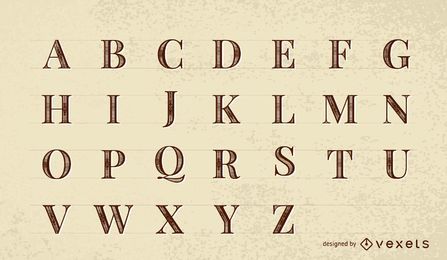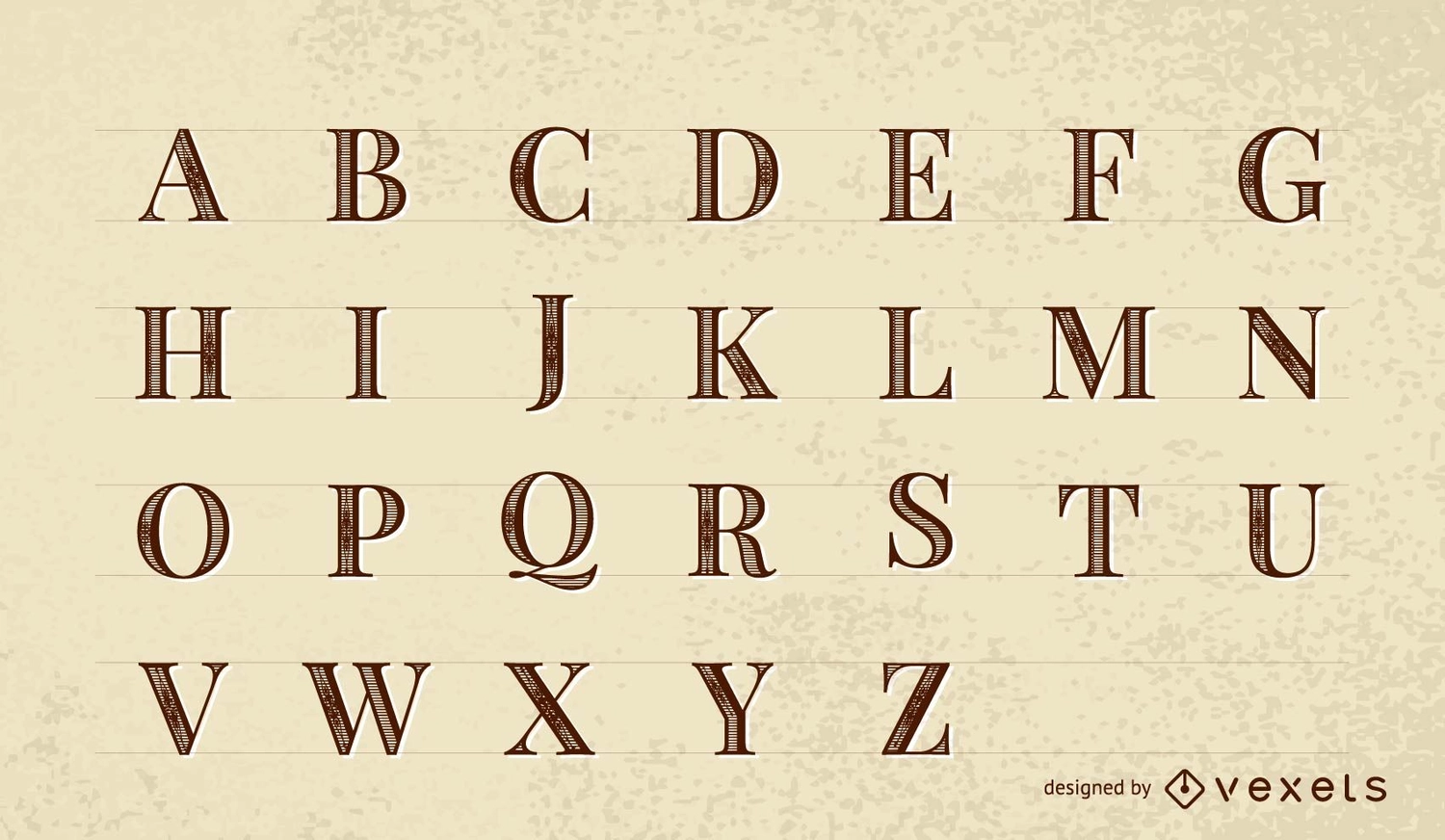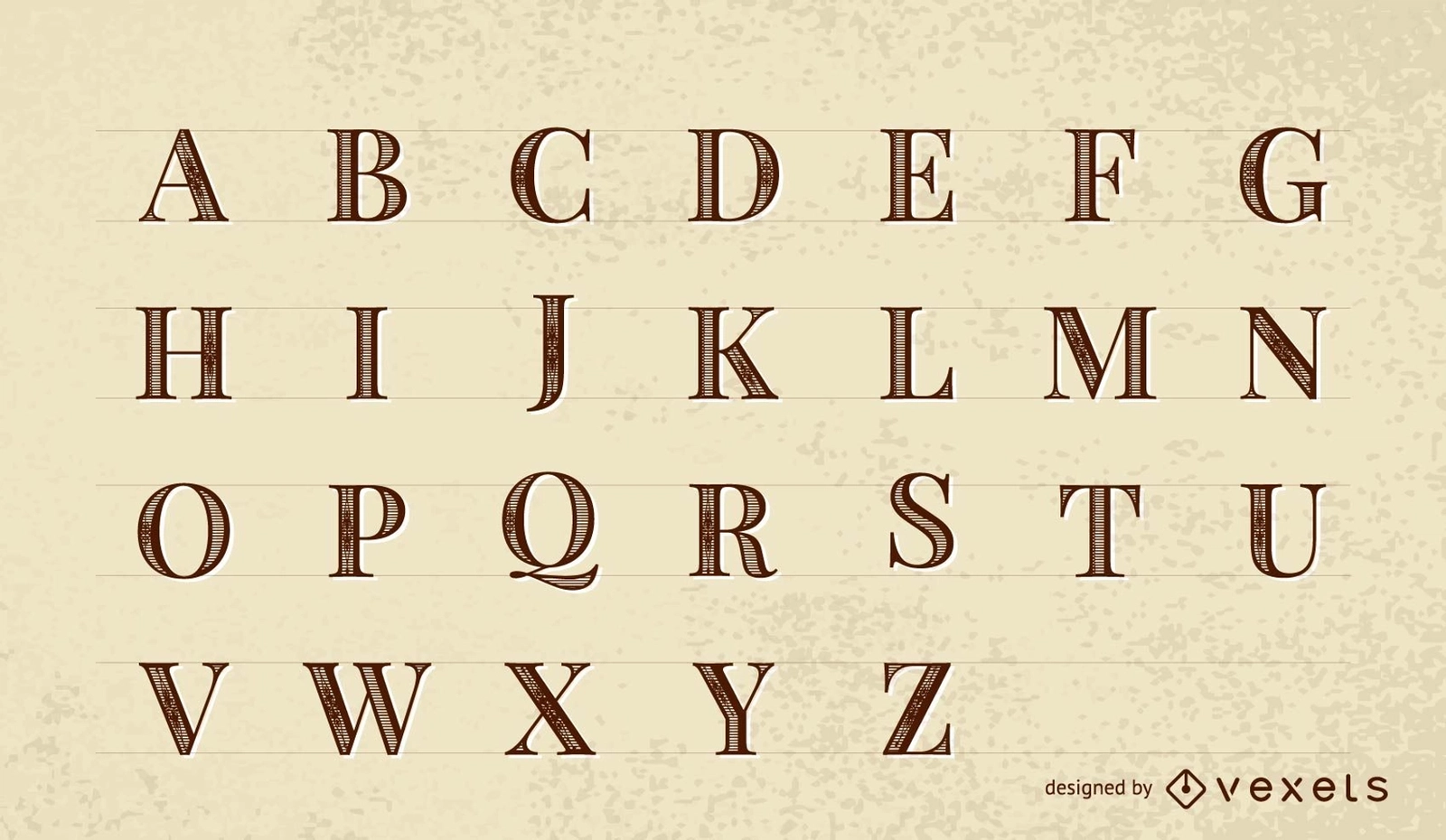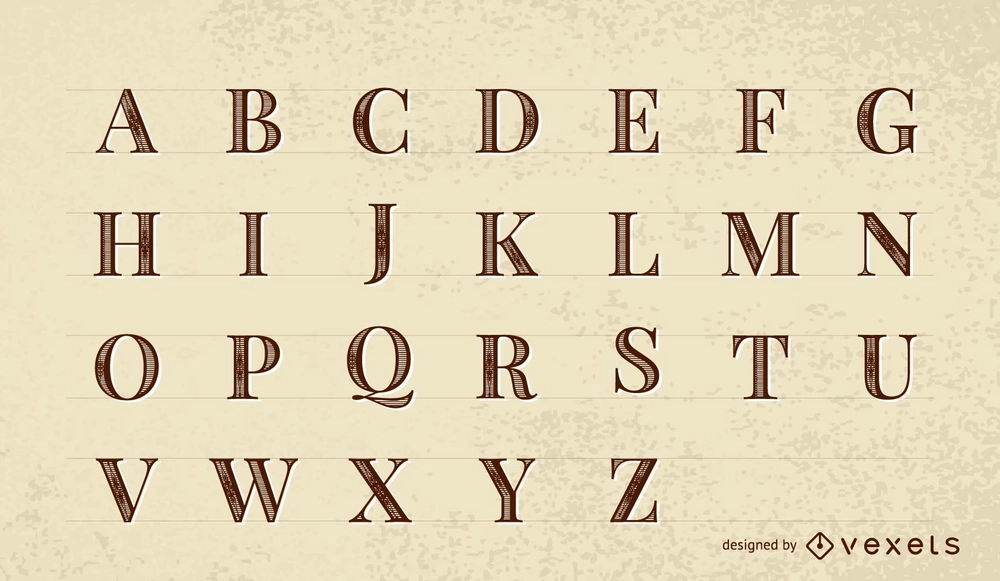
Vector Font: Roman Print
Full roman print font containing all the letters from the Latin alphabet. Use it for any types of lettering captions and titles you need in your designs